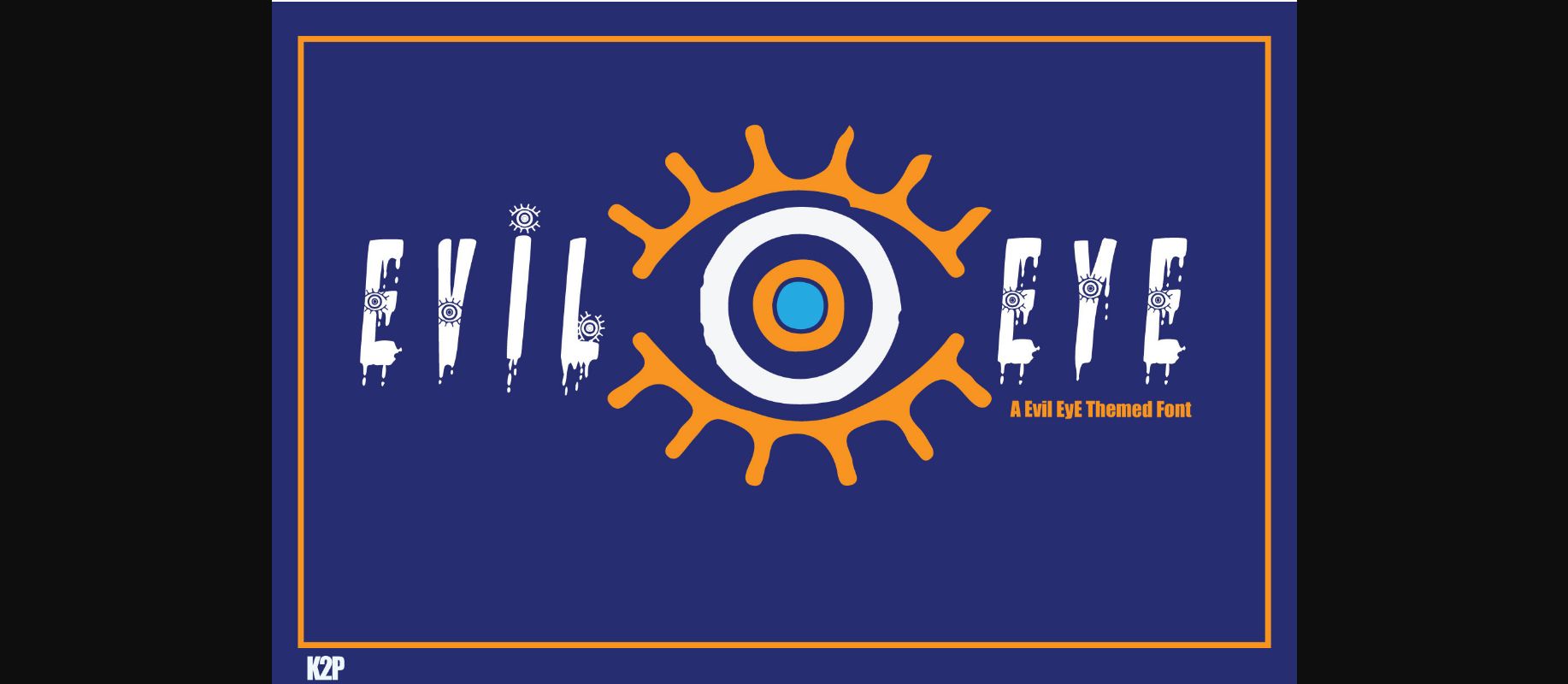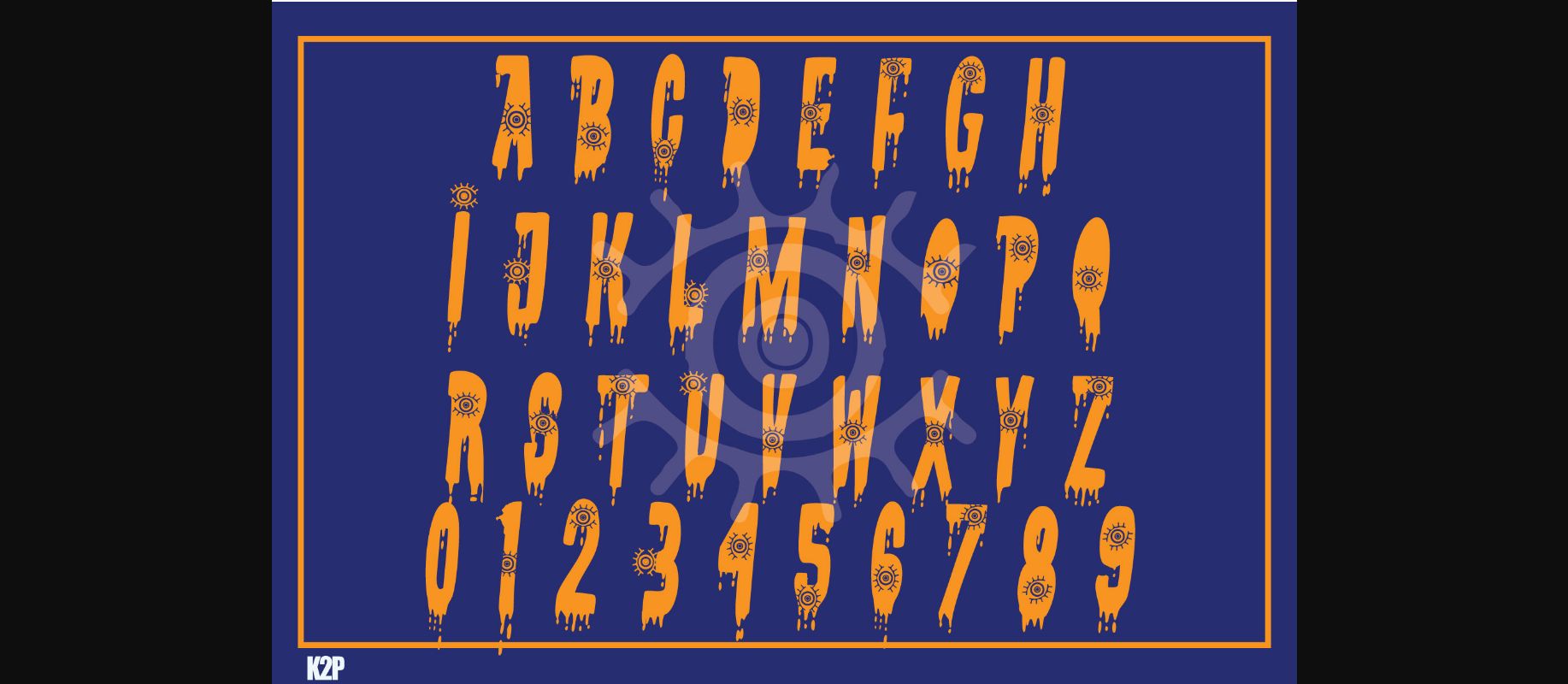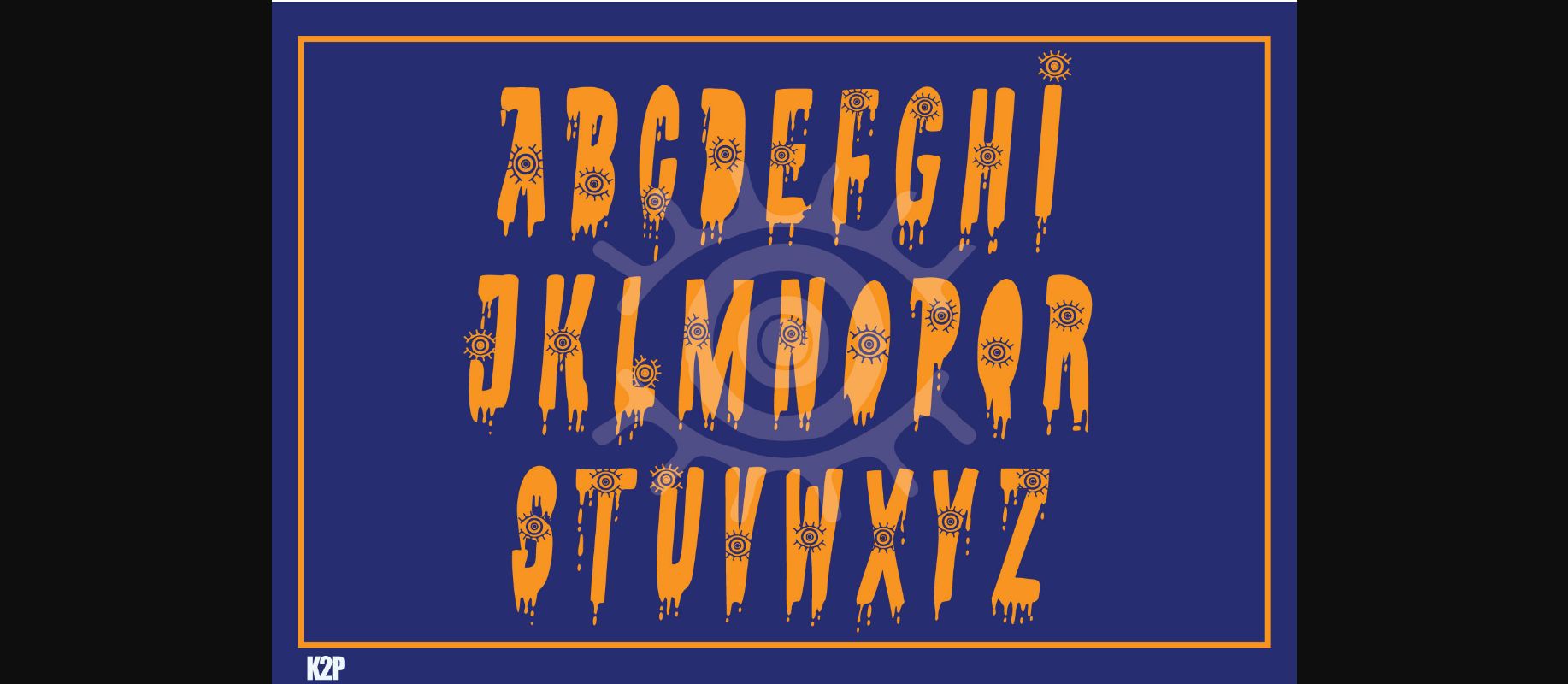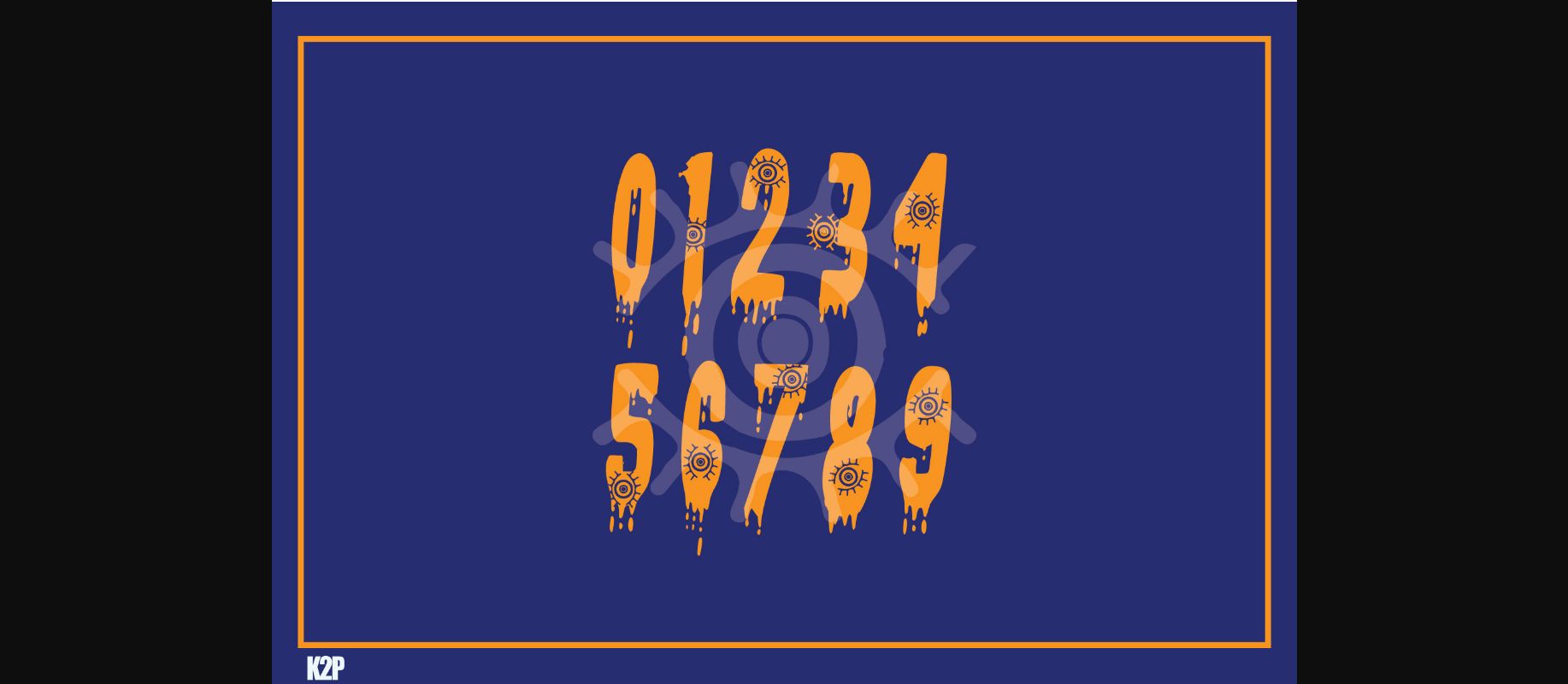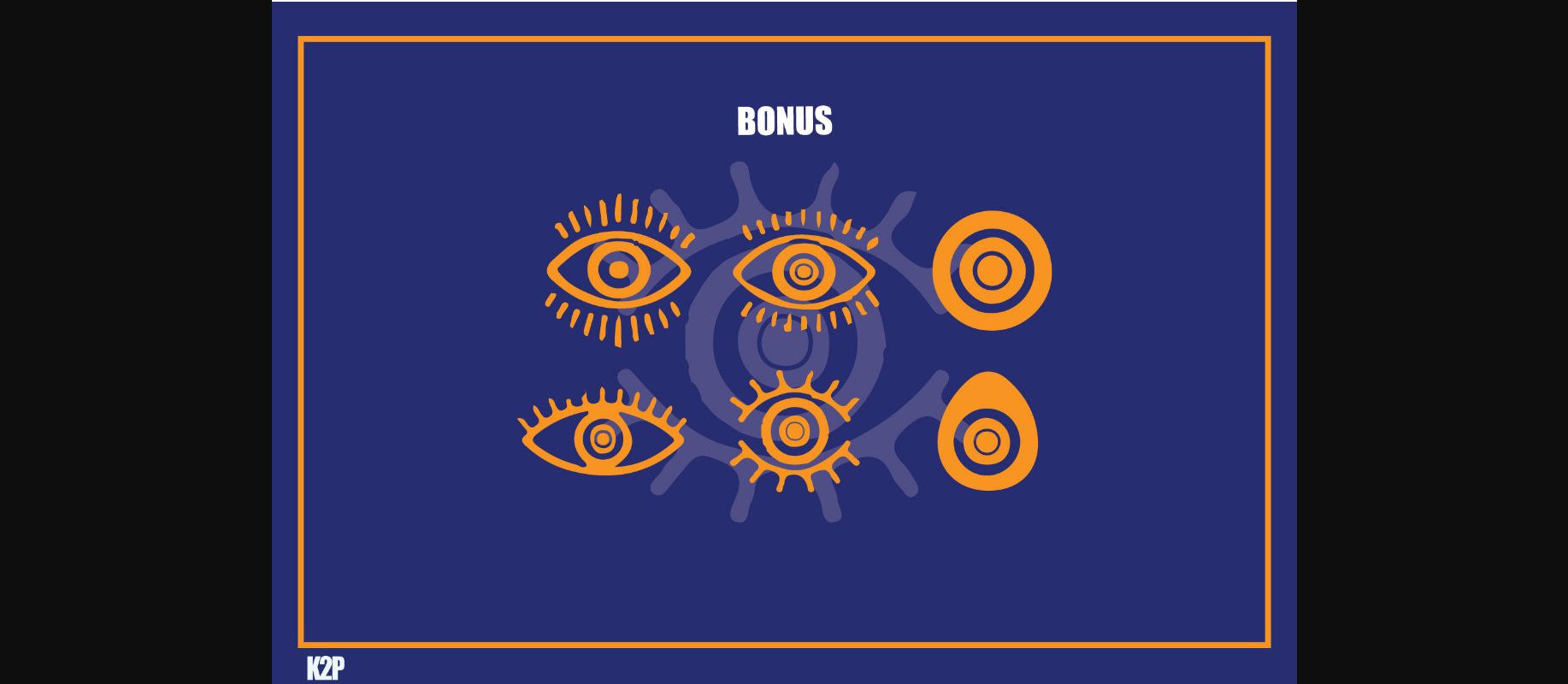
Evil Eye II Font
About Evil Eye II Font
Evil Eye II is a thick-lettered and uniquely designed decorative font. It is perfectly suitable for any Halloween project, or crafty idea! Add it confidently to your favorite creations and let yourself be amazed by the outcome generated.